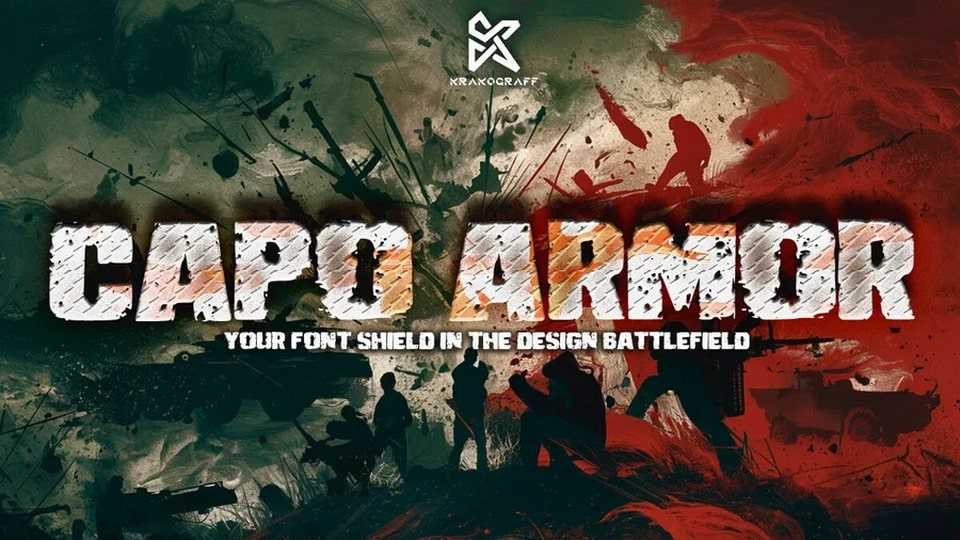
Download Capo Armor font, a striking display typeface that marries boldness with a rugged, grungy aesthetic, making it a standout choice for projects that demand attention.